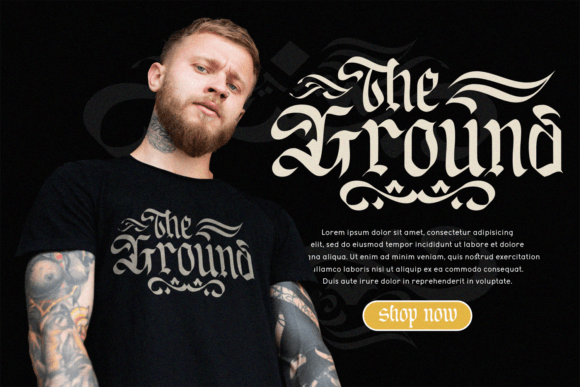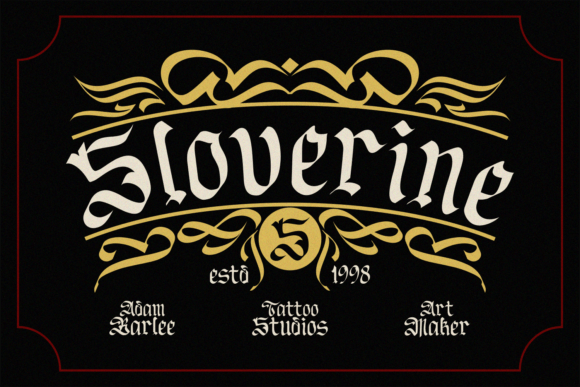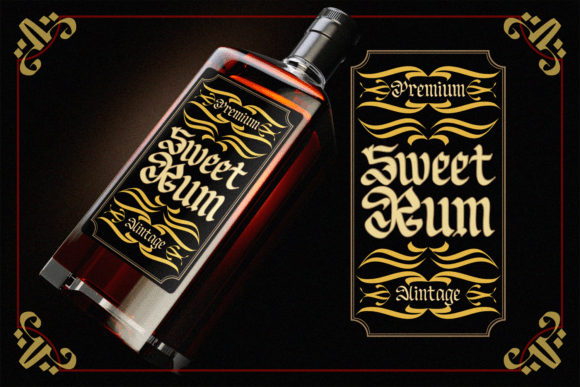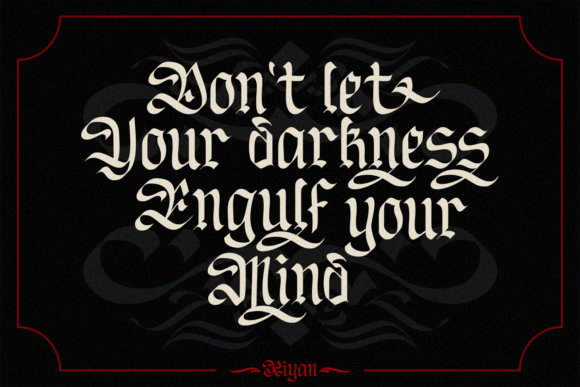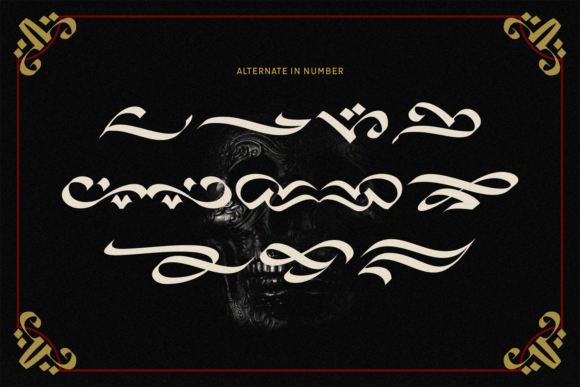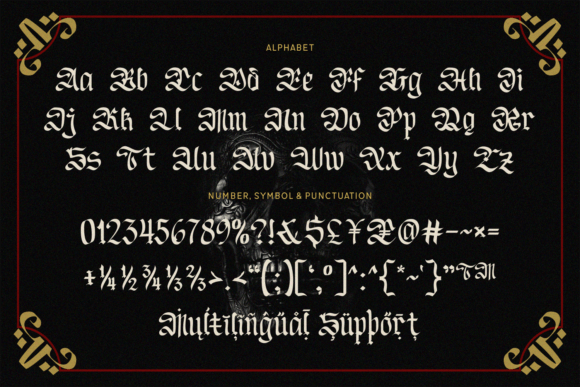
Introduction to Kingslayer Font Font
Fonts play a crucial role in design, and the Kingslayer Font font is a typeface that brings both character and versatility to any project. Whether you’re working on a branding project, a website, or a print design, the Kingslayer Font font offers a unique style that can elevate your work.
Kingslayer is a splendid blackletter font that will impress with its stylish features.
Use it for product packaging, branding, or other projects that need bold and daring typography This font is PUA encoded which means you can access all the glyphs and ligatures with ease.
Key Features of Kingslayer Font Font
Why Choose Kingslayer Font Font?
The Kingslayer Font font is more than just a typeface – it’s a design tool that helps you communicate your message with style and clarity. Its unique character set and versatile design make it suitable for a wide range of applications, from elegant invitations to bold headlines.
With its carefully crafted letterforms and balanced proportions, the Kingslayer Font font ensures readability and visual appeal across all mediums.
What makes Kingslayer Font font special?
The Kingslayer Font font stands out with its unique design, exceptional readability, and versatility across various design applications.